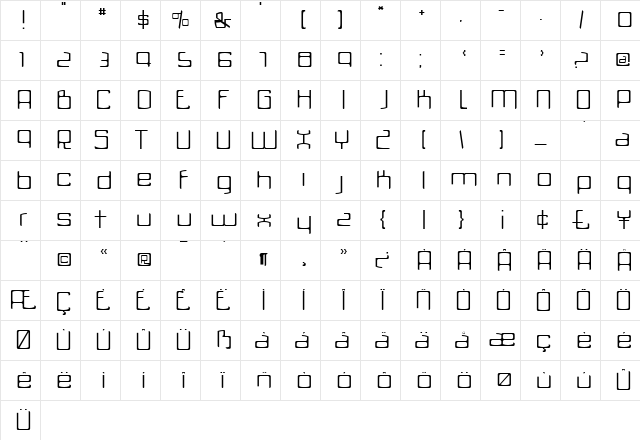
Utensil Medium Font Preview
Utensil Medium
Design Context for Utensil Typeface
Utensil offers clean, dependable letterforms without strong stylistic allegiance, making it a practical choice for designers who need flexibility.